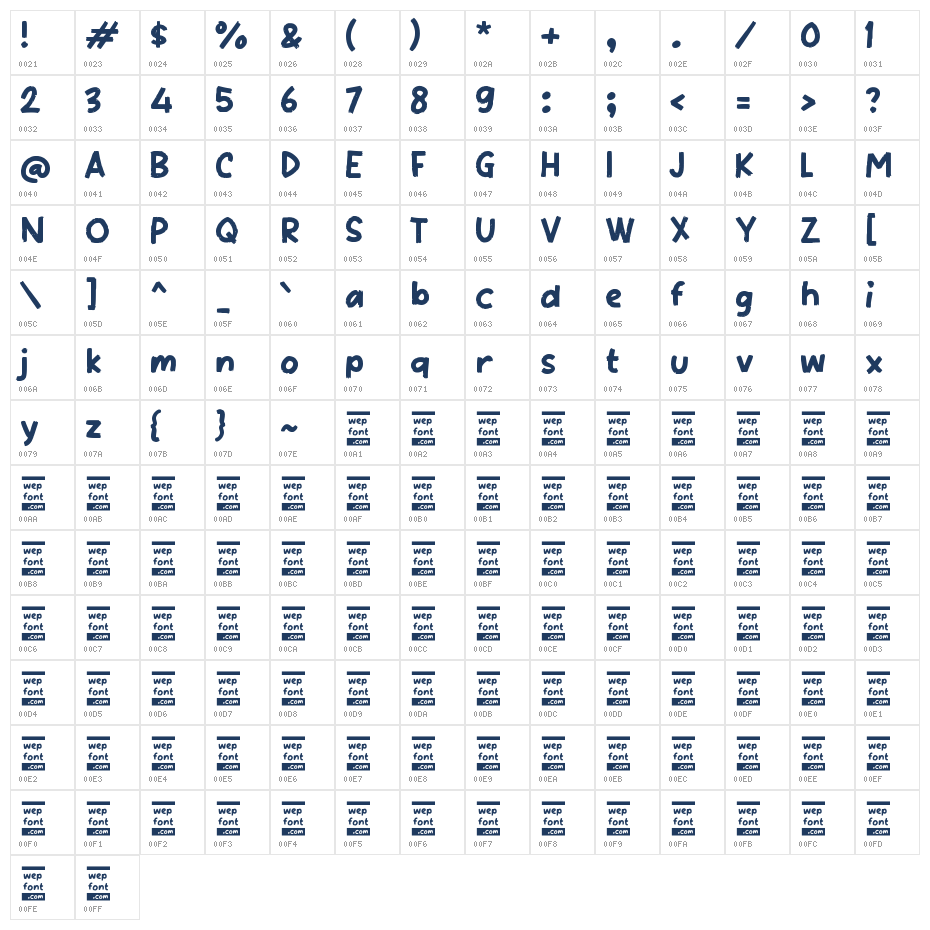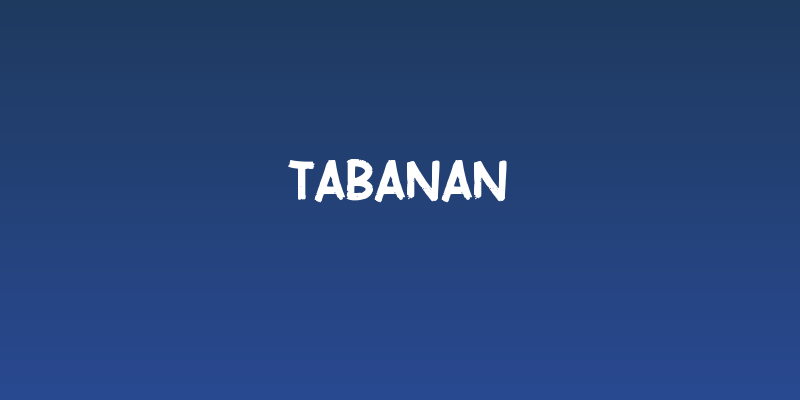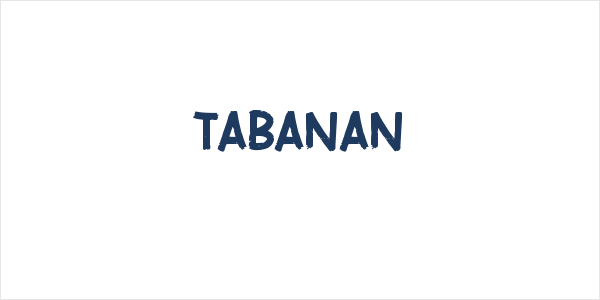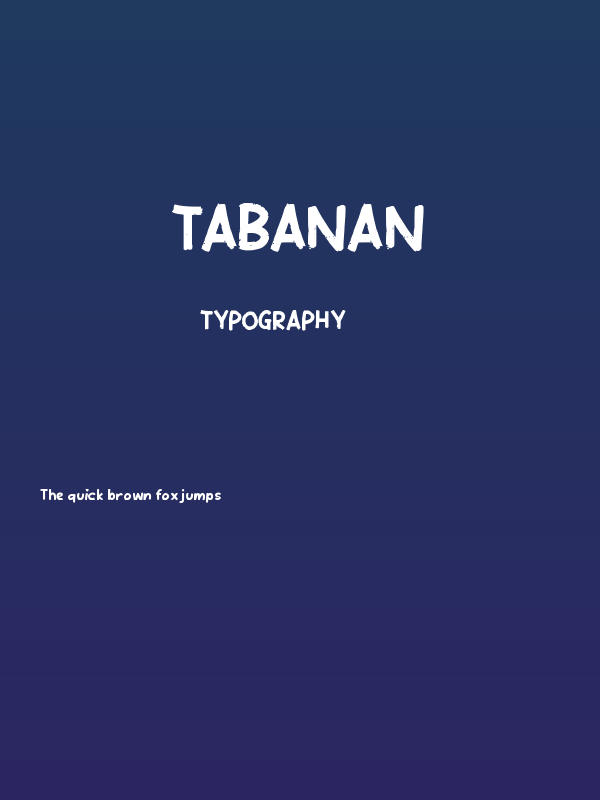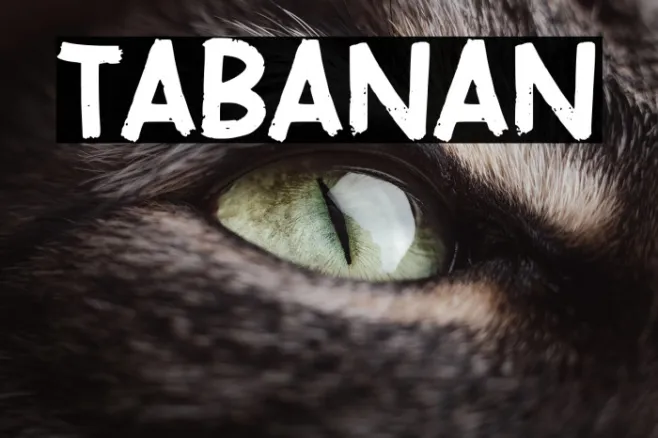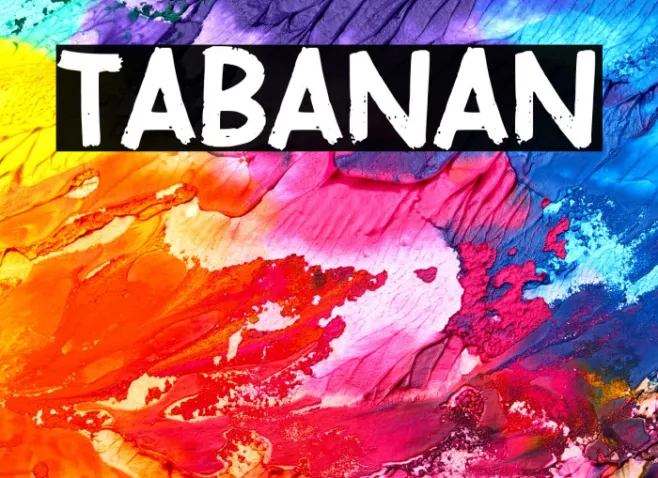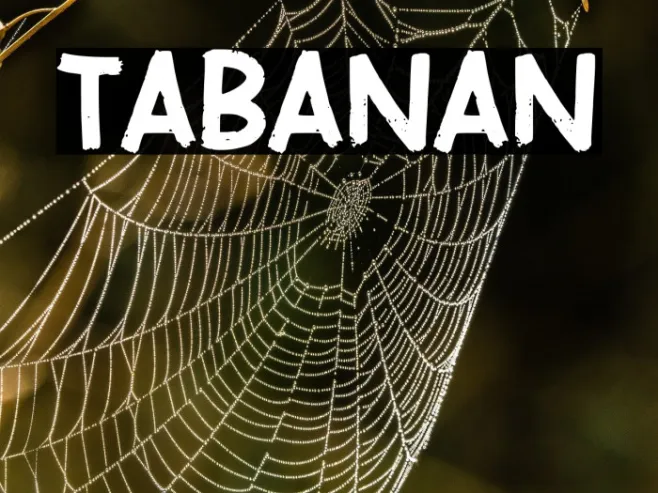
TABANAN Font
TABANAN Description
A playful, bold, handwritten style font with irregular strokes and a casual appearance.
| Use Case | Headlines, Posters, Children's books, Logos |